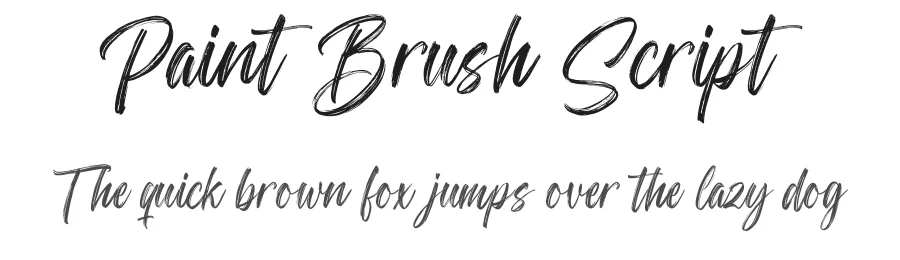
About Hamburg Font
Introducing, The Hamburg Script inspired by traditional Script Calligraphy with brushpen, this font is totaly handmade with brush pen scratch. it would be great for any type of design. i will hope this make you inspired with my font.
The Hamburg Script would perfect for photography, watermark, social media posts, advertisements, logos & branding, invitation, product designs, label, stationery, wedding designs, product packaging, special events or anything that need handwriting taste
| Designer | Muhammad Fathi Al Ghazi |
Hamburg Font is a script font that shines as a display or heading face. Pair it with a clean sans-serif or serif font for body text β the contrast creates a clear hierarchy while the two styles stay balanced and easy to read.